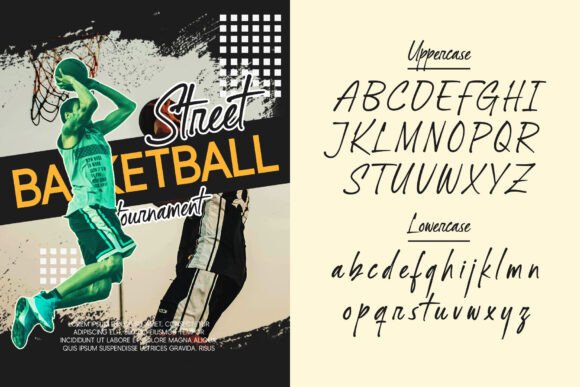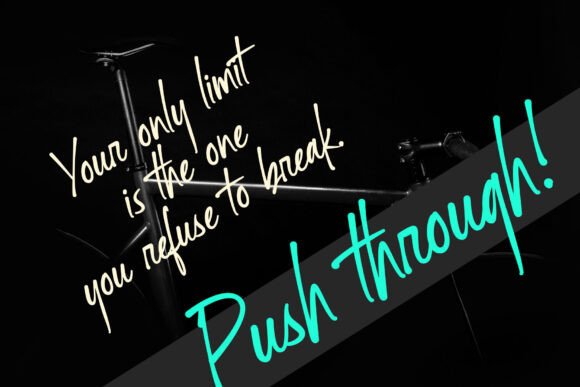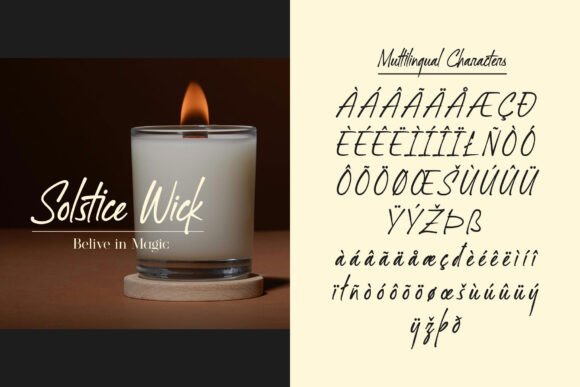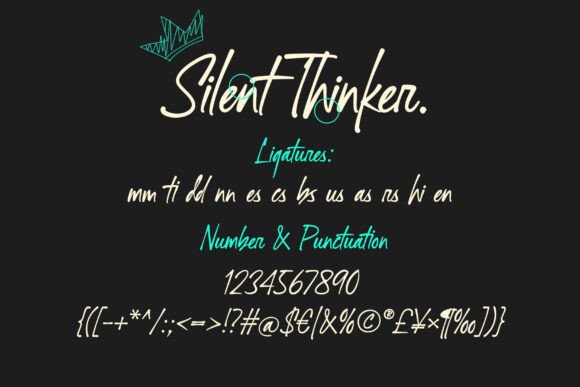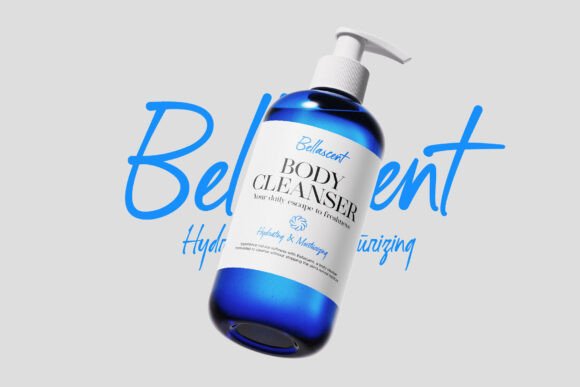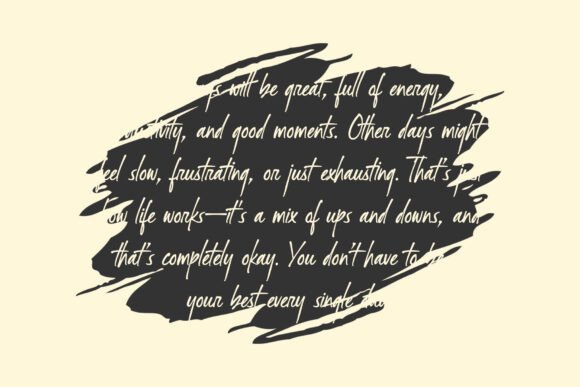
Introduction to Silent Thinker Font
Have you ever found yourself lost in the creative process, scribbling down ideas on a piece of paper, and suddenly, a brilliant concept emerges from the chaos of scribbles and doodles? That’s the magic of the Silent Thinker Font – a handwritten font that embodies the spontaneity and energy of the creative process.
With its swift strokes and dynamic letterforms, the Silent Thinker Font is perfect for designers seeking a natural and characterful handwritten touch for their creative projects. Whether you’re working on branding, motivational quotes, product packaging, or social media designs, this font is a valuable design resource that can elevate your work to the next level.
Key Features of Silent Thinker Font
- Unique and modern design for creative projects, making it an ideal design resource.
- Includes multiple font styles and weights, allowing users to customize their design to suit their needs.
- Designed to be highly legible, even at small font sizes, making it perfect for use in digital design and publishing.
Honest Review: Silent Thinker Font
I recently came across the Silent Thinker Font, and I must say it’s been a game-changer for my creative projects. The font’s modern and sleek design makes it perfect for any high-quality design resource.
Tips for Getting the Most Out of Silent Thinker Font
Q: Is the Silent Thinker Font suitable for high-quality print materials?
Yes, the Silent Thinker Font is designed to produce high-quality results when used in print materials. It features a high level of detail and clarity, making it an excellent choice for business cards, brochures, and other marketing materials. However, please ensure that your design software and printing equipment are capable of producing high-quality output.